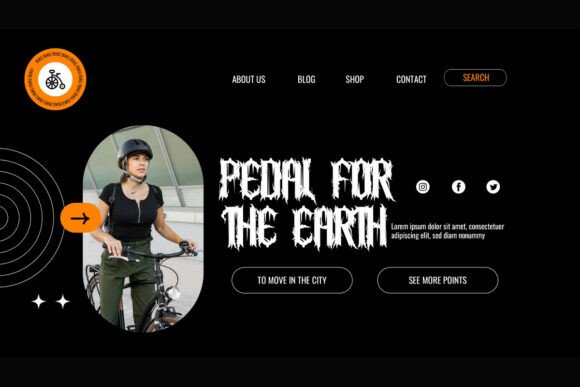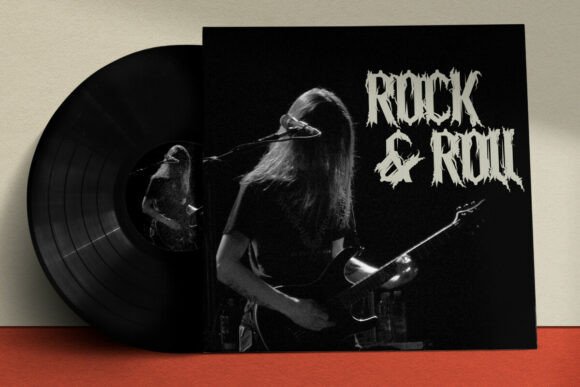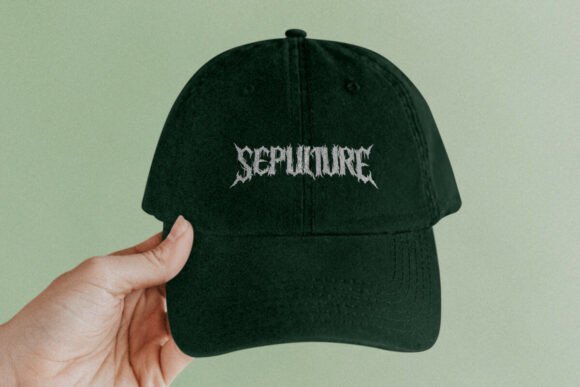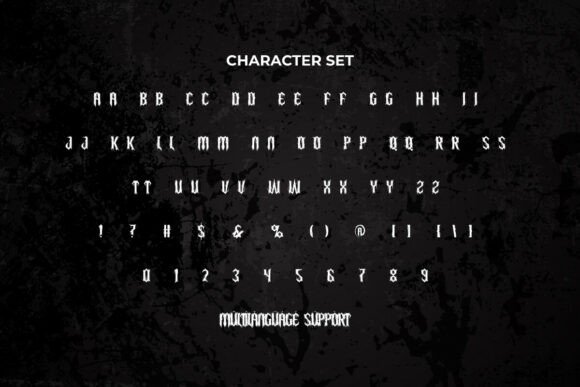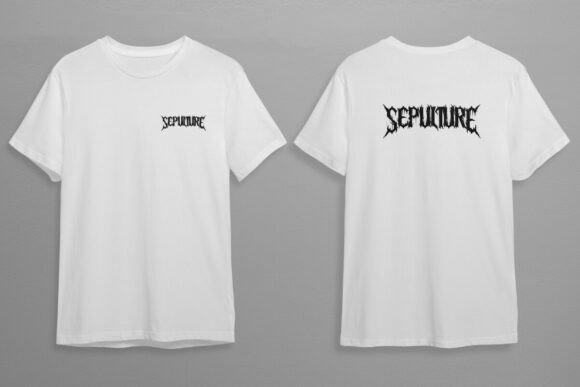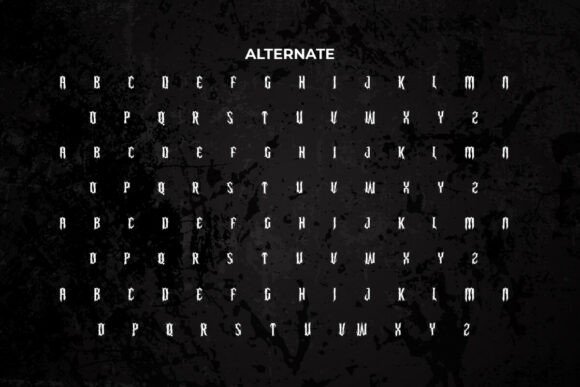
Introduction to Sepulture Font
Imagine you’re in the middle of a creative project, and you’re struggling to find the perfect font to give your design that extra oomph. You’ve searched high and low, but nothing seems to fit the tone you’re going for. That’s where Sepulture Font comes in – a hardcore, scary black metal font that’s sure to give your designs a bold and intimidating look.
With its irregular lines that resemble roots and a spooky tree trunk shape, Sepulture Font is the perfect addition to any design resource. Whether you’re working on a brand image, cover, or custom design, this font is sure to make a statement. And the best part? It’s available for free download, making it a valuable asset for any designer looking to elevate their creative project.
- Unique characteristics include a mysterious, gothic-inspired aesthetic and a wide range of glyphs.
- Suitable for a variety of design resources, including logos, typography, and creative graphics.
Honest Review: Sepulture Font
As a designer, I’m always on the lookout for unique and high-quality fonts to enhance my creative projects. The Sepulture Font is one such resource that caught my attention. With a free download option, it’s a great addition to any design arsenal.
One of the standout features of the Sepulture Font is its high quality design. The transparent background and elegant typography make it perfect for any project that requires a touch of sophistication.
- ✨ Unique and elegant typography
- ⚠️ Limited character set
- ⚠️ May not be suitable for all design projects
Overall, the Sepulture Font is a solid addition to any design resource library. While it may have some limitations, its unique design and high-quality typography make it a great choice for creative projects that require a touch of sophistication.
How to Use Sepulture Font
The Sepulture Font is a high-quality, free download design resource that can elevate any creative project. With its unique and stylish design, it’s perfect for adding a touch of sophistication to your work.
The Sepulture Font is perfect for use in a variety of creative projects, including:
- Logos and branding
- Posters and advertisements
- Business cards and invitations